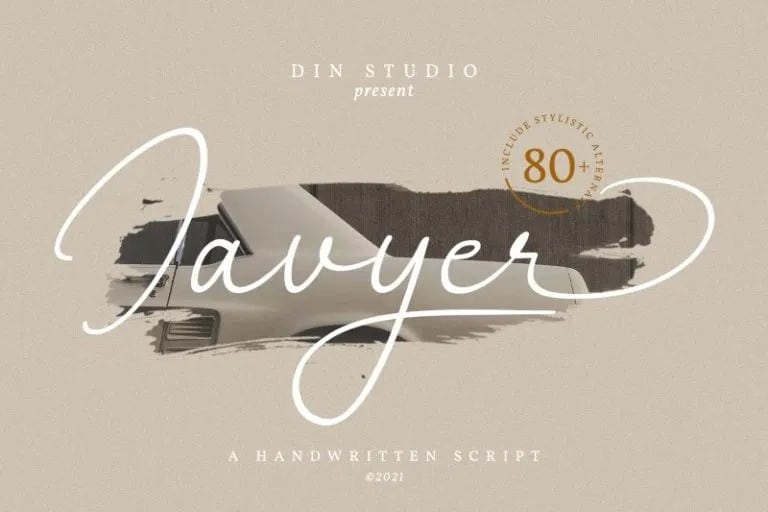
Javyer Font
Javyer Script Font consisting of a fashionable sophisticated signature-style script with its own unique curves and an elegant inky flow.This handmade font typeface with elegant style looks very interesting for loads of different projects and promotions. It is perfect to be used on your website, for your social media branding, Pinterest banners, printed products, and more!